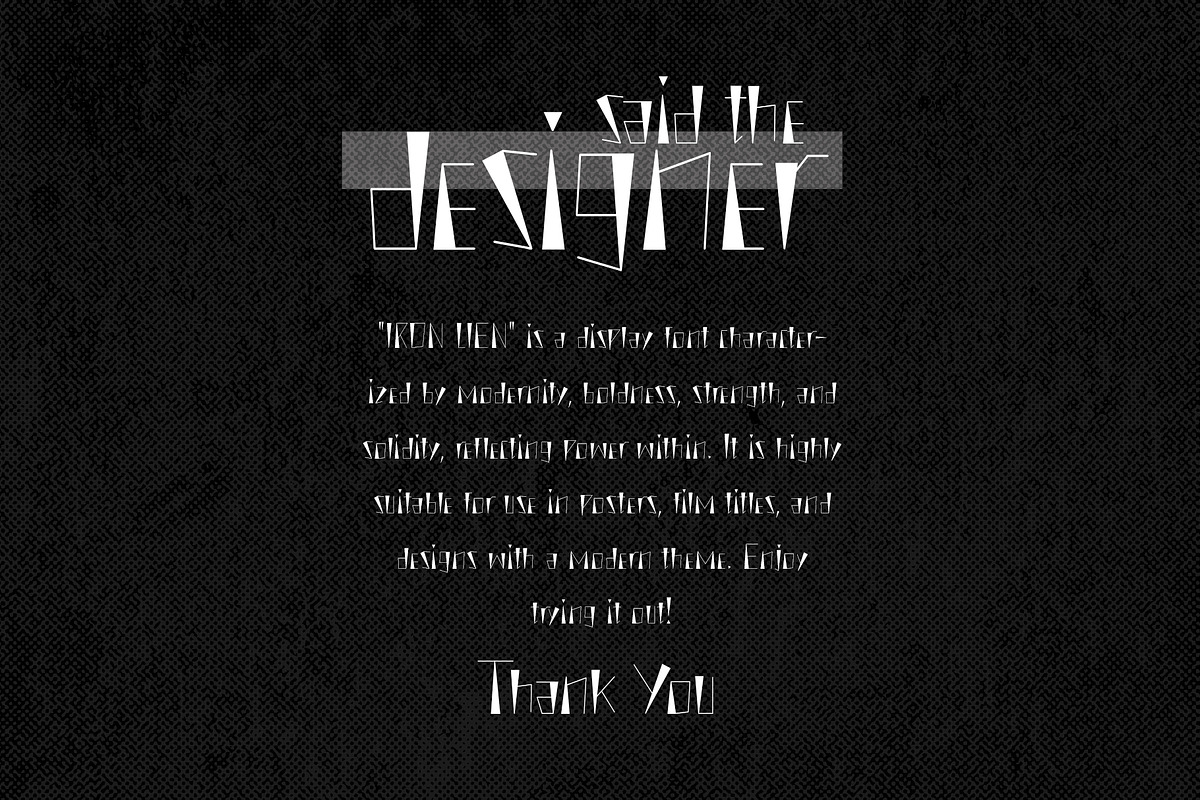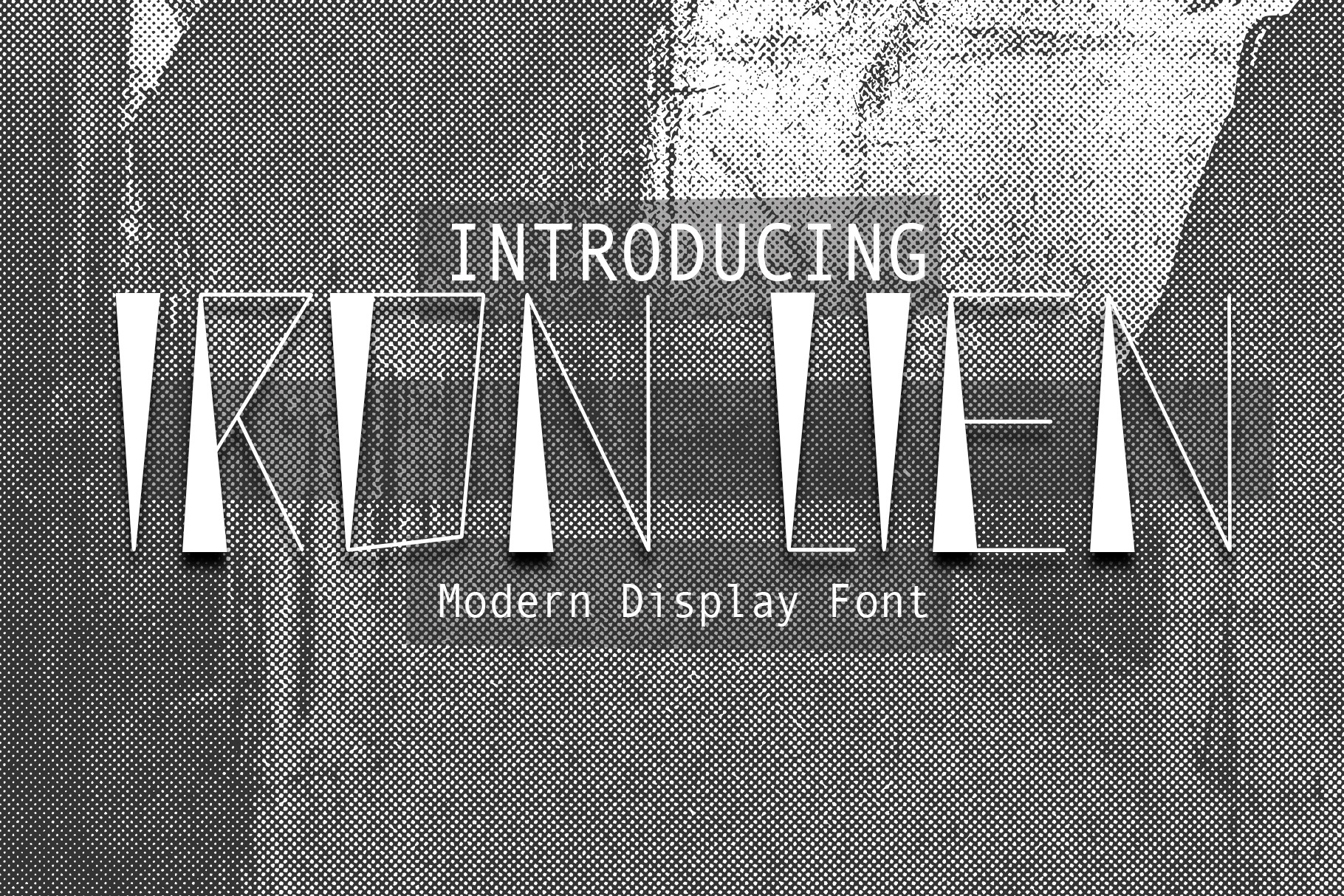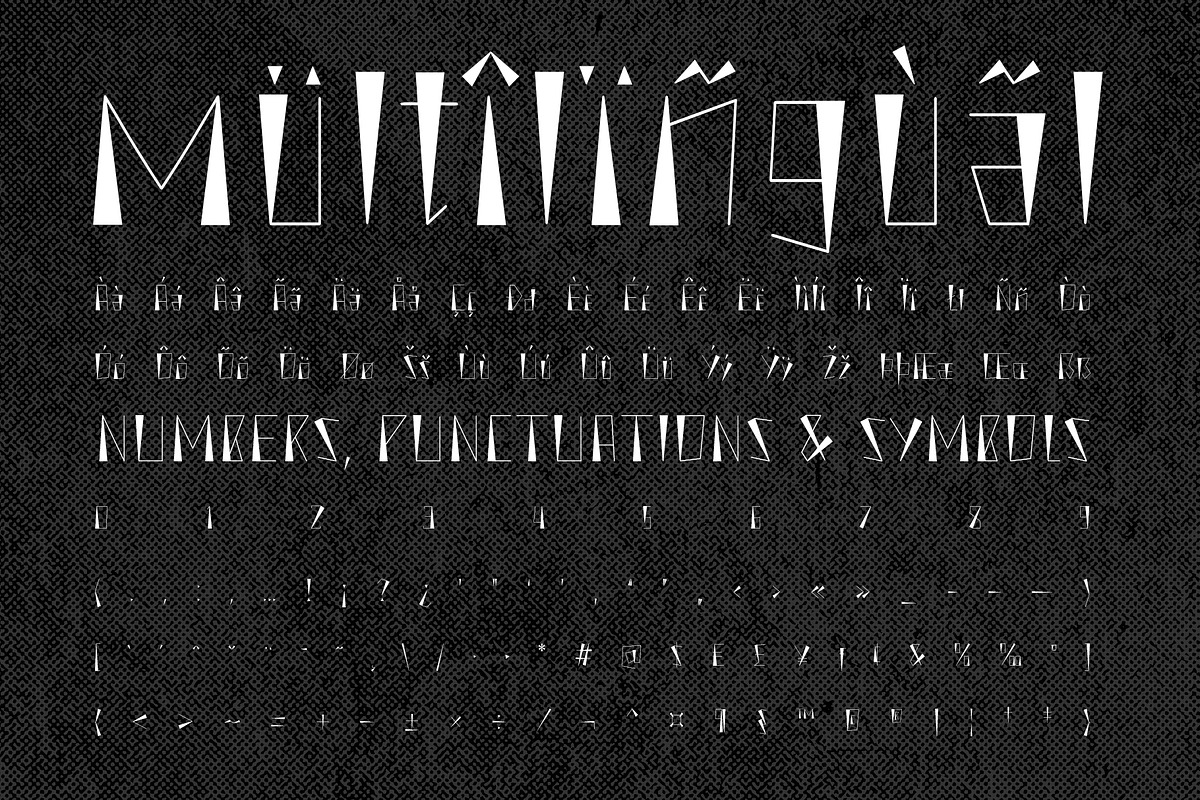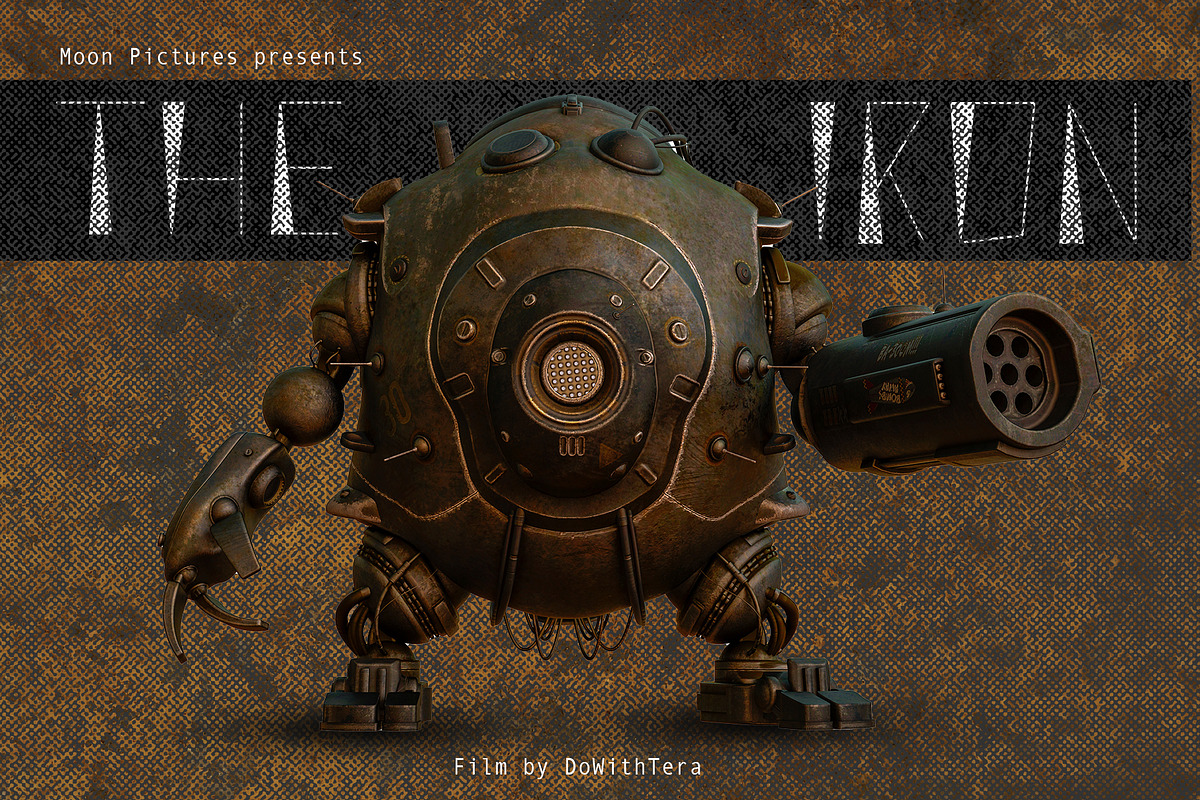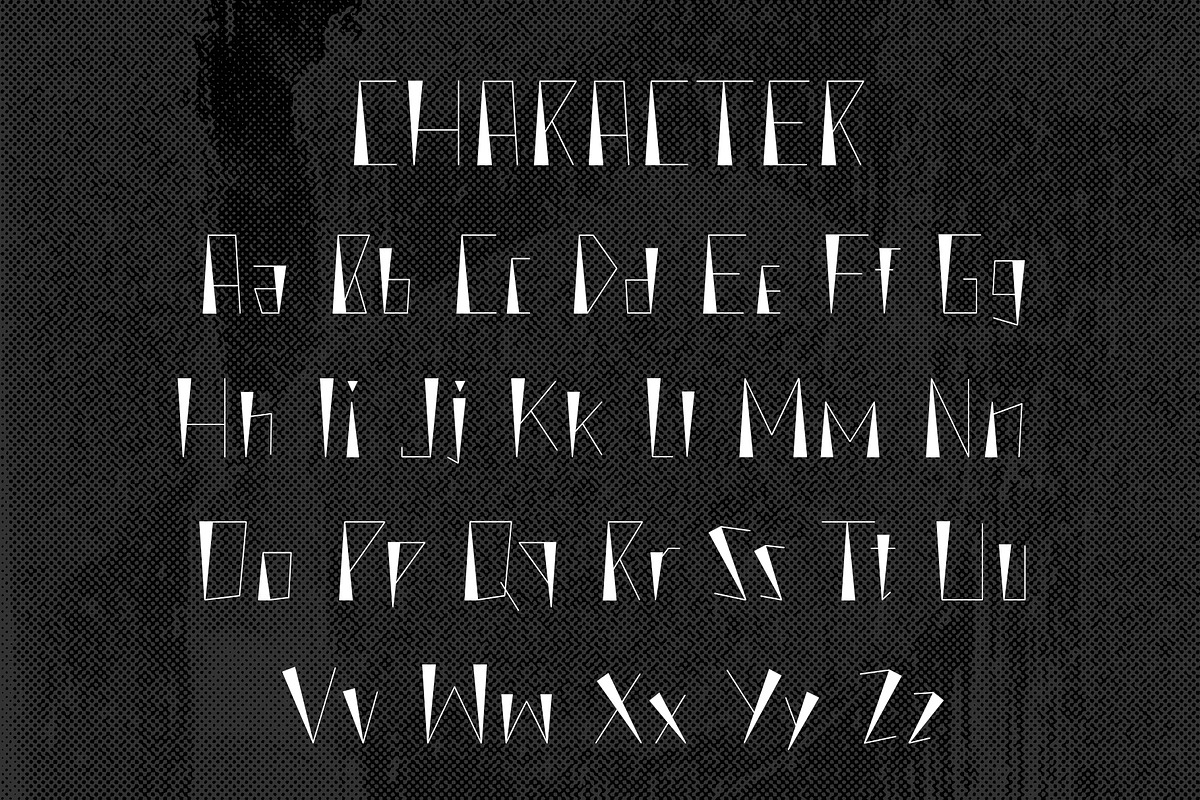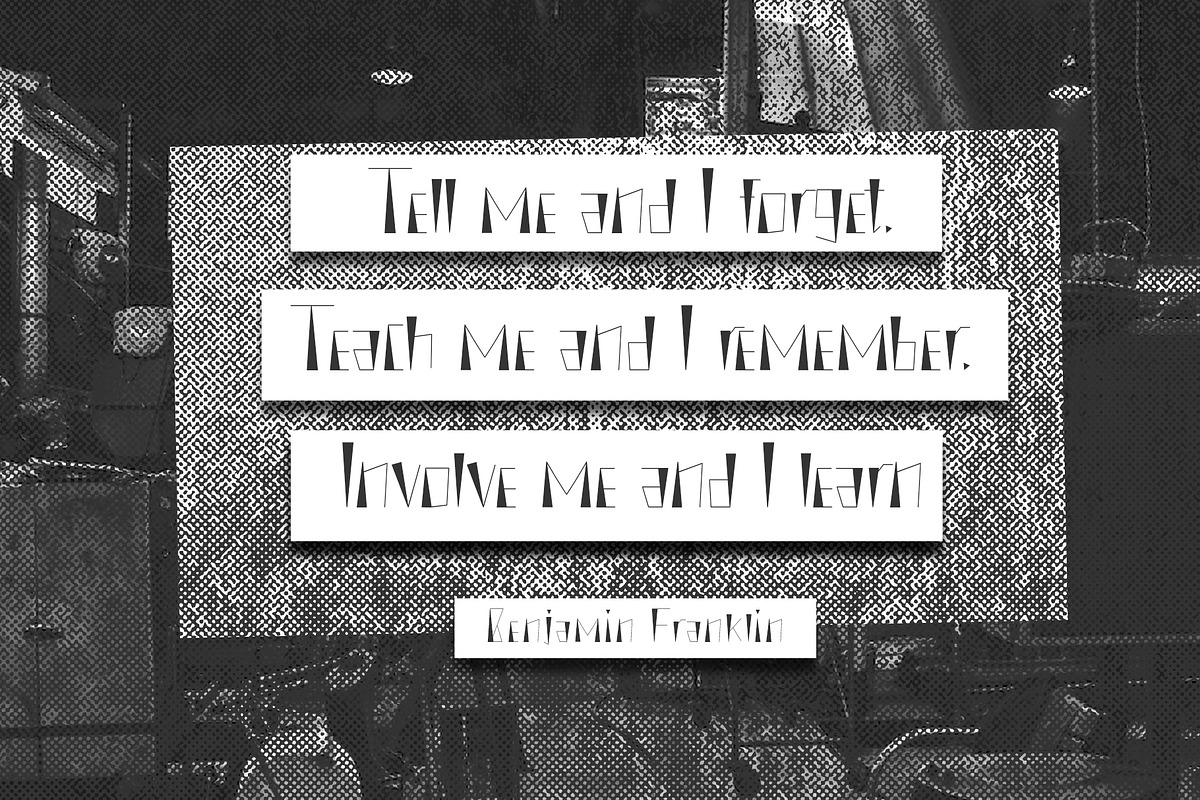
Iron Lien Modern Display Font
Iron Lien is a modern font that embodies strength and dynamism in every letter. Designed with a strong and contemporary style, this font is suitable for various design projects that require a powerful and bold impression.
The history of the creation of the Iron Lien font began with our desire to create a font that combines modern design elements with a prominent sense of power. We were inspired by the dynamic and ever-evolving world of graphic design, where a strong and bold appearance is increasingly important in delivering an effective message.
Iron Lien has a sharp design that reflects resilience and firmness in every letterform. Every line and angle is carefully chosen to provide strong visual impact and an impressive impression. The font reinforces the message you want to convey in your design, providing a bold and captivating look for readers.
By using the Iron Lien font in your design projects, you will add a strong and dynamic modern touch. This font is suitable for use in posters, branding, titles, and other projects that require a bold and prominent impression. The font provides visual strength that supports the message you want to convey, creating a strong and unforgettable look for readers.
Iron Lien is the right choice for designers who want to create a strong and prominent impression in their works. With its modern style and firmness, this font will leave an impressive impression and attract attention, enhancing the visual appeal of every design you create.